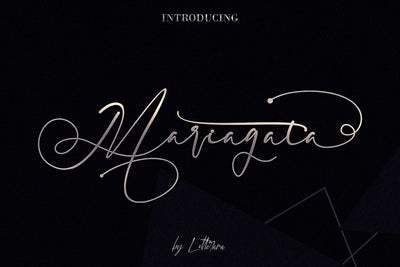
MARIAGATA
Inspired by modern caligraphy, Mariagata is a mixture of copper calligraphy with handlettering style. Designed to bring style elegance, sensual, glamorous, simple and very readable typeface.
- Upper Case & Lowercase
- Accents (Multilingual characters)
- Ligatures, Titling, and Swash